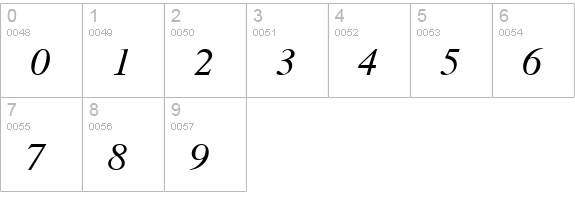
Tribune Italic Font Details
Tribune Italic is a distinctive, italic variant in the Tribune typeface family \xE2\x80\x94 well suited to design and typography projects.
Tribune Italic is a stunning and elegant font that combines modernity with a touch of classic sophistication. Its sleek and slanted design adds a unique flair to any project, making it perfect for headlines, logos, and branding materials. The italicized letterforms exude a sense of motion and energy, lending a dynamic and captivating quality to your text. This font is not only visually appealing but also highly versatile. Whether used in print or digital media, Tribune Italic offers excellent legibility and readability, ensuring that your message is conveyed effortlessly. Its balanced proportions and carefully crafted curves make it a joy to read, while the italic style brings a sense of drama and elegance to your text. One of the most remarkable aspects of Tribune Italic is that it is available for free. Yes, you read that right – this exceptional font can be freely downloaded at FontsMarket.com. This means that you can have access to this exquisite typeface without having to spend a dime. So why wait? Enhance your design projects with the captivating allure of Tribune Italic. Download it today from FontsMarket.com and experience the seamless blend of modernity and timeless beauty that this font has to offer.